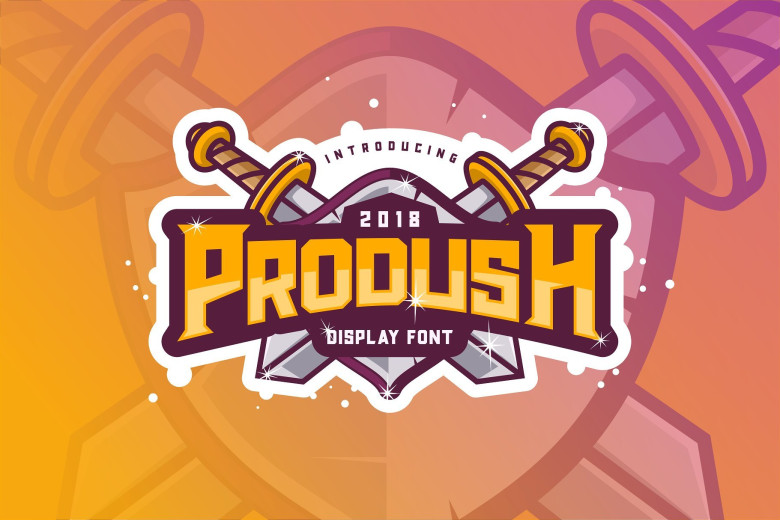
Prodush Typeface
Introducing Prodush Font. This masculine style font is designed with uppercase characters. This font is perfect for logo, poster, label product, or whatever. This logo is available in OTF and TTF formats …